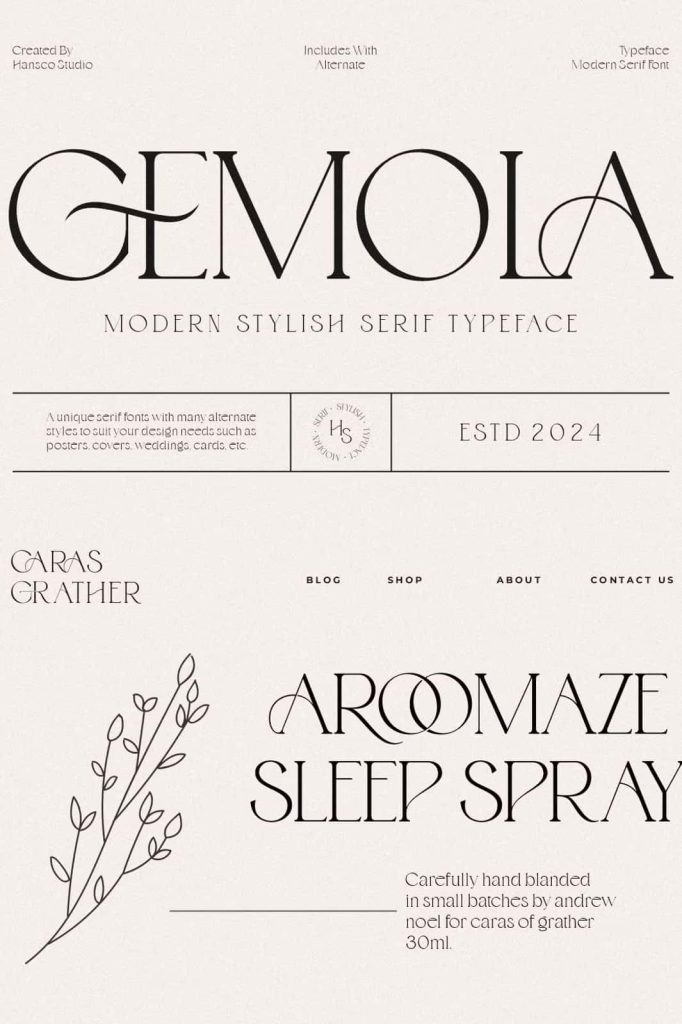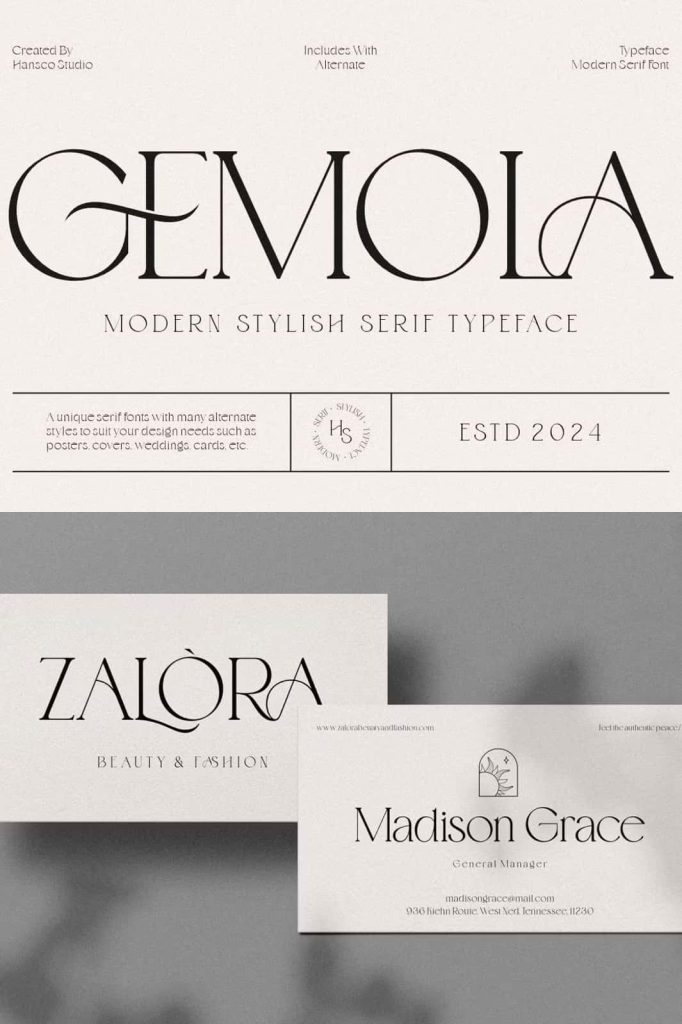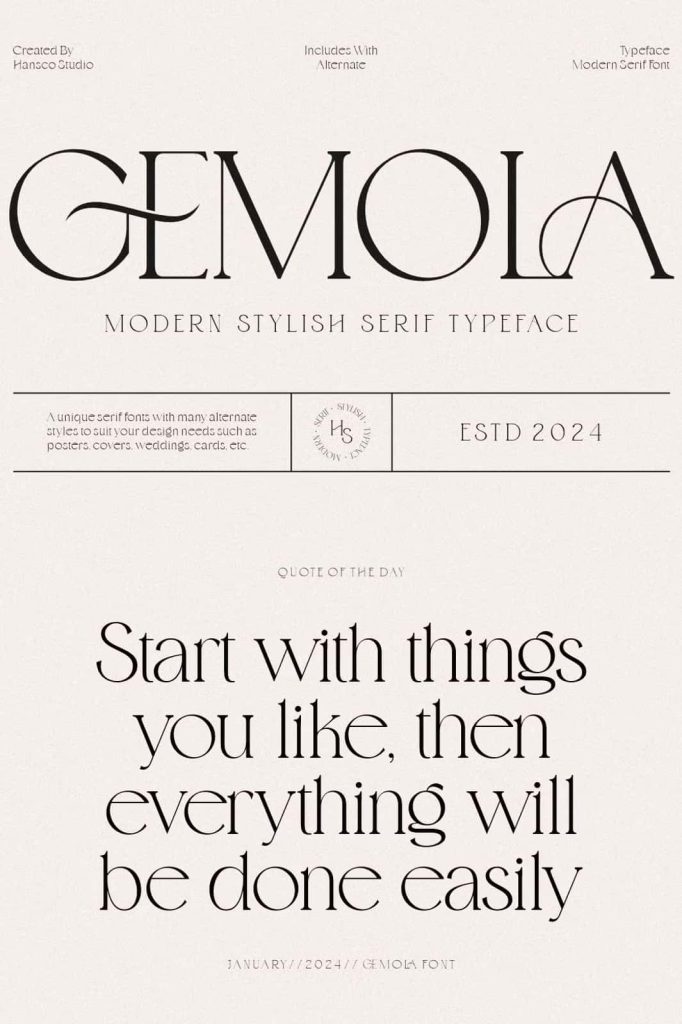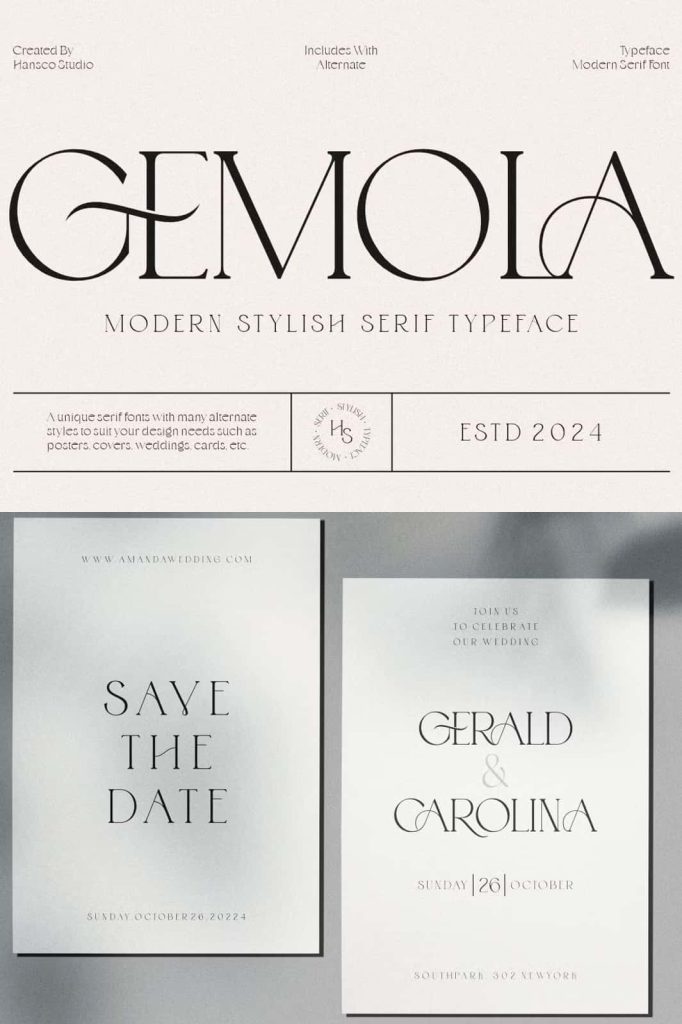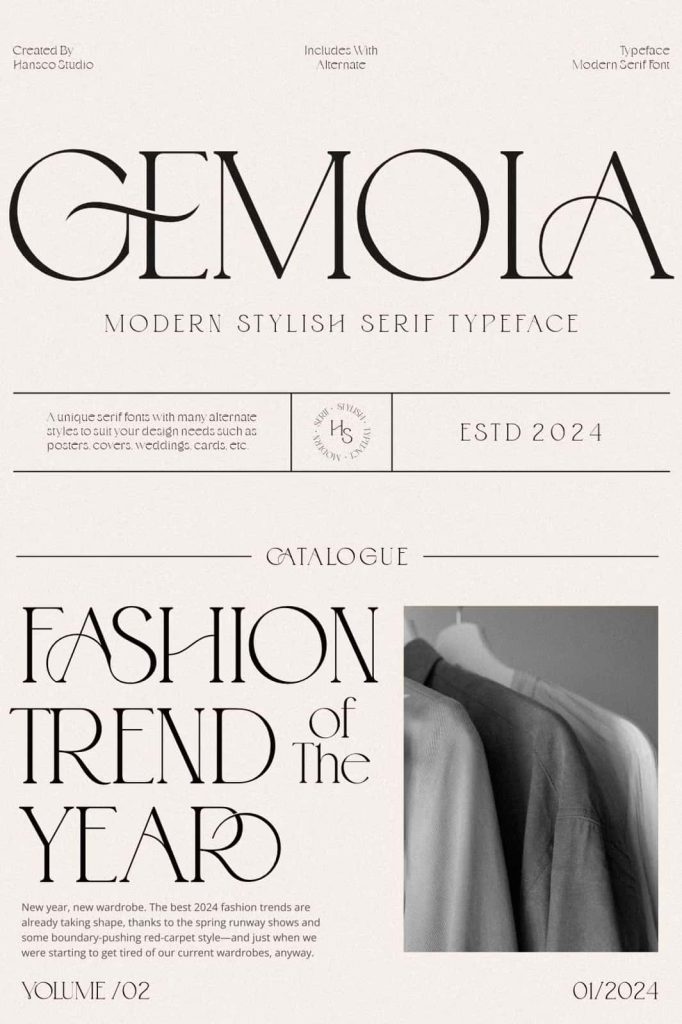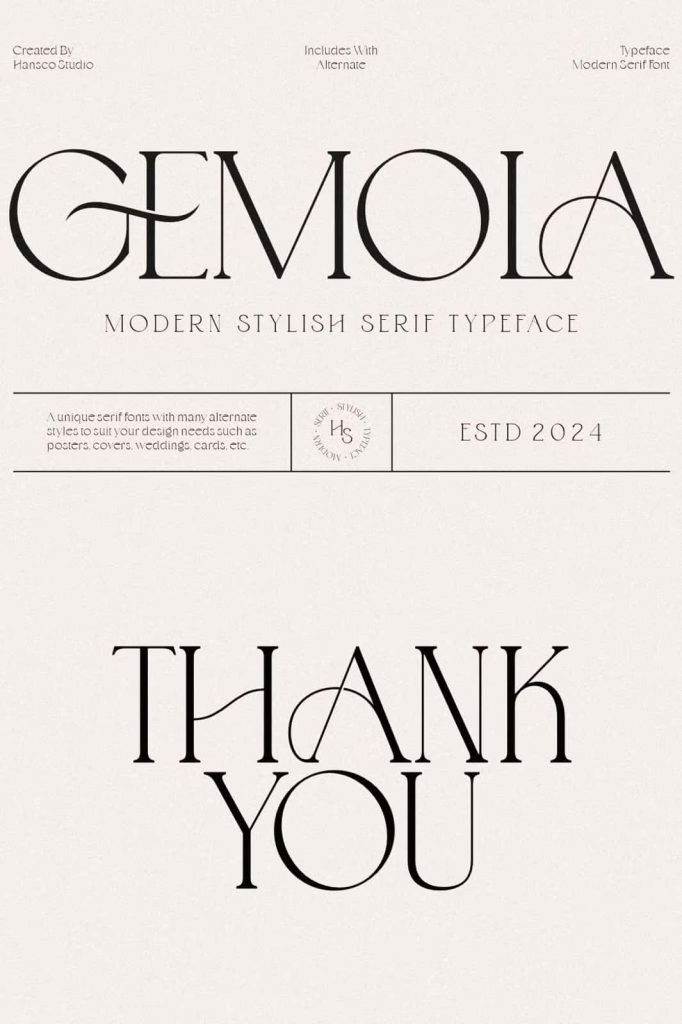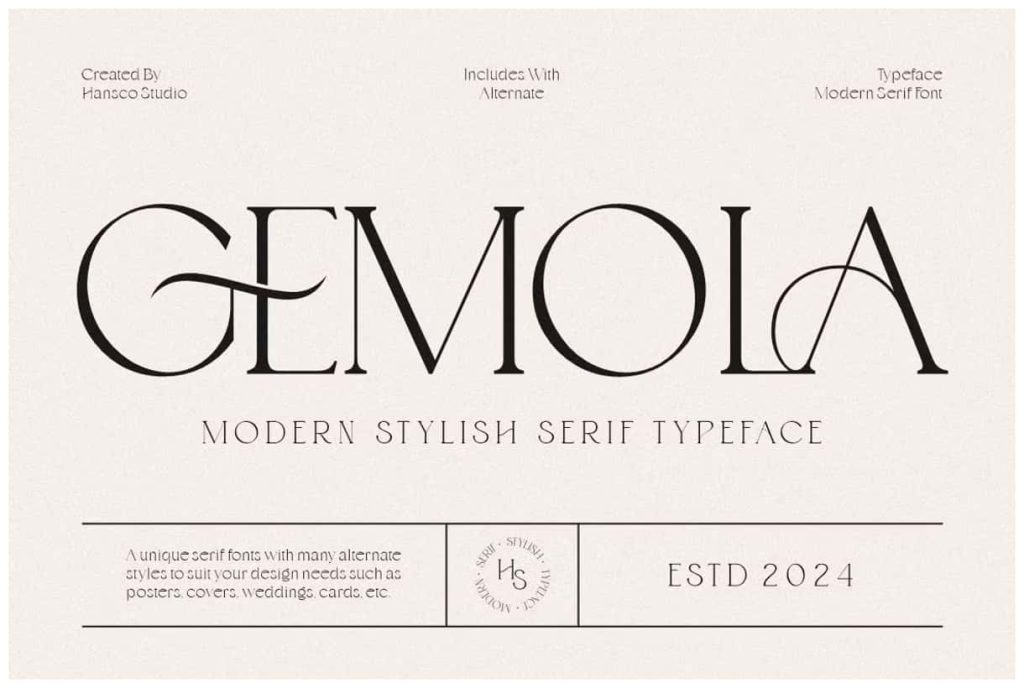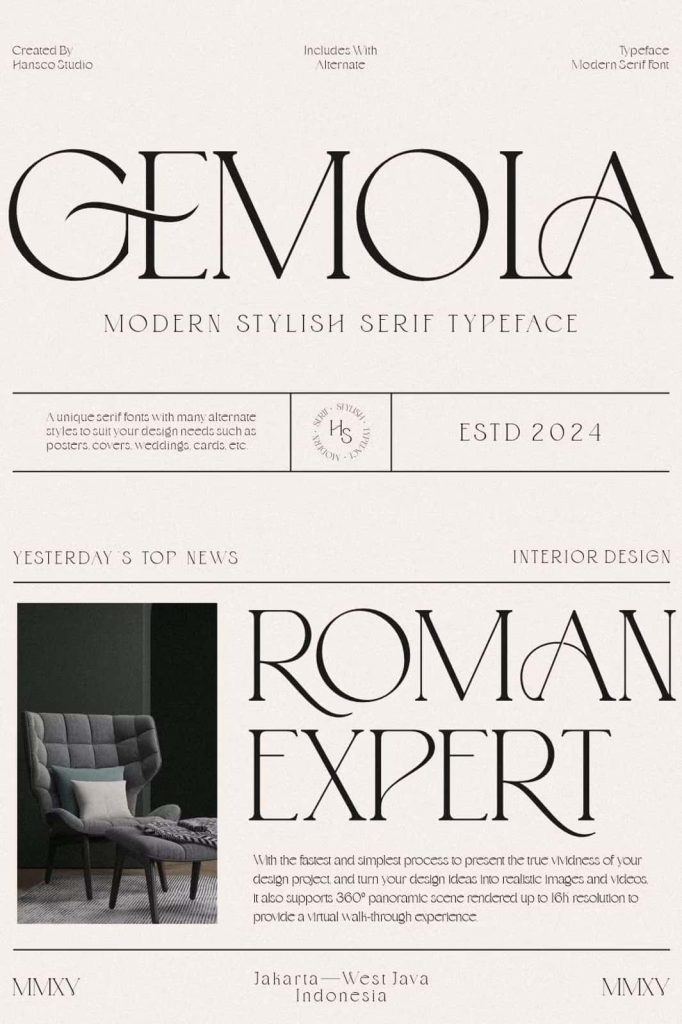
Gemola Font – Elegant Modern Display Serif for Luxurious and Romantic Designs
Introducing Gemola Font
Gemola Font is a beautifully designed elegant display serif typeface that perfectly blends luxury, modernity, and romance. Created for designers who appreciate fine details and refined aesthetics, Gemola adds a distinctive touch to every project. Its smooth curves, graceful serifs, and balanced proportions bring an artistic flair that enhances visual storytelling across branding, editorial, and creative works. Whether used for logos, packaging, or wedding invitations, Gemola makes every design look sophisticated and memorable.
A Modern Serif with Timeless Elegance
Gemola Font embodies the charm of classic serif typography but presents it through a fresh, modern perspective. The typeface showcases clean lines and high contrast between thick and thin strokes, creating an elegant yet contemporary impression. It was designed with versatility in mind, ensuring that it performs beautifully across digital and print mediums. The modern elegance of Gemola makes it suitable for brands that value a strong, confident, and graceful visual identity.
Inspired by Romantic Vibes
Gemola takes inspiration from romantic aesthetics, giving each letter a soft and luxurious presence. The designer infused the font with subtle nuances that convey warmth and emotional depth. This romantic influence makes Gemola an excellent choice for wedding projects, personal branding, event invitations, or editorial layouts that aim to evoke feeling and intimacy. Every curve and serif detail is thoughtfully crafted to create harmony and beauty on the page.
Perfect for Multipurpose Design Projects
Gemola’s refined construction and timeless design make it perfect for a wide range of creative applications. Its adaptability allows it to stand out in both minimal and elaborate compositions. Designers around the world use Gemola for various design projects such as:
- Logo Design: Create striking and memorable brand marks that communicate sophistication.
- Brand Identity: Develop cohesive visual systems that reflect professionalism and style.
- Editorial Design: Use Gemola in magazine titles, book covers, or articles to create elegant layouts.
- Posters and Prints: Add character and beauty to posters, flyers, and promotional materials.
- Packaging and Labels: Elevate product presentation with stylish and readable typography.
- Invitations: Ideal for wedding, party, or event invitations that demand luxury and romance.
- Quotes and Crafts: Turn ordinary text into visually captivating compositions.
Comprehensive Features and Character Set
Gemola Font includes a complete set of typographic features to provide flexibility and creativity in any project. Its thoughtfully designed character set ensures professional usability and artistic expression. Included in the font package are:
- Uppercase and lowercase letters
- Punctuation and special symbols
- Full set of numerals
- Beautiful ligatures for natural letter combinations
- Stylistic alternates for creative customization
These features give designers the ability to experiment with text styling and achieve refined, expressive results in branding, print, or digital layouts.
Why Choose Gemola Font?
Gemola Font stands out for its luxurious style and modern versatility. Its classic structure ensures timeless beauty, while its clean design keeps it relevant to today’s creative trends. The typeface offers the perfect balance of personality and professionalism, making it suitable for both personal and commercial use. It’s the ideal serif for designers who value attention to detail and want to make a powerful first impression.
Design Benefits:
- Elegant & Luxurious: Delivers a premium look suitable for high-end branding and events.
- Versatile Application: Performs perfectly across web, print, and product design.
- Romantic Aesthetic: Adds emotional warmth and visual harmony to any composition.
- Professionally Crafted: Each letterform designed for consistency and readability.
Ideal for Designers and Creative Professionals
Gemola Font is a designer’s dream typeface. It combines beauty, flexibility, and technical precision in one package. Whether you’re designing a brand identity, launching a luxury product, or crafting editorial visuals, Gemola provides the right tone — refined, sophisticated, and modern. Its premium appearance elevates any creative project, ensuring that every piece of text leaves a lasting impression.
Gemola Font captures the essence of timeless elegance in a modern form. It’s an elegant display serif with romantic undertones and luxurious details that make it perfect for a variety of professional and artistic uses. From logos to branding, invitations, packaging, posters, and editorial design, Gemola enhances visual identity and adds a touch of sophistication to every layout. Bring charm and distinction to your next design project with Gemola — a font that transforms words into visual masterpieces.
Choose Gemola Font to express elegance, romance, and professionalism in every letter.